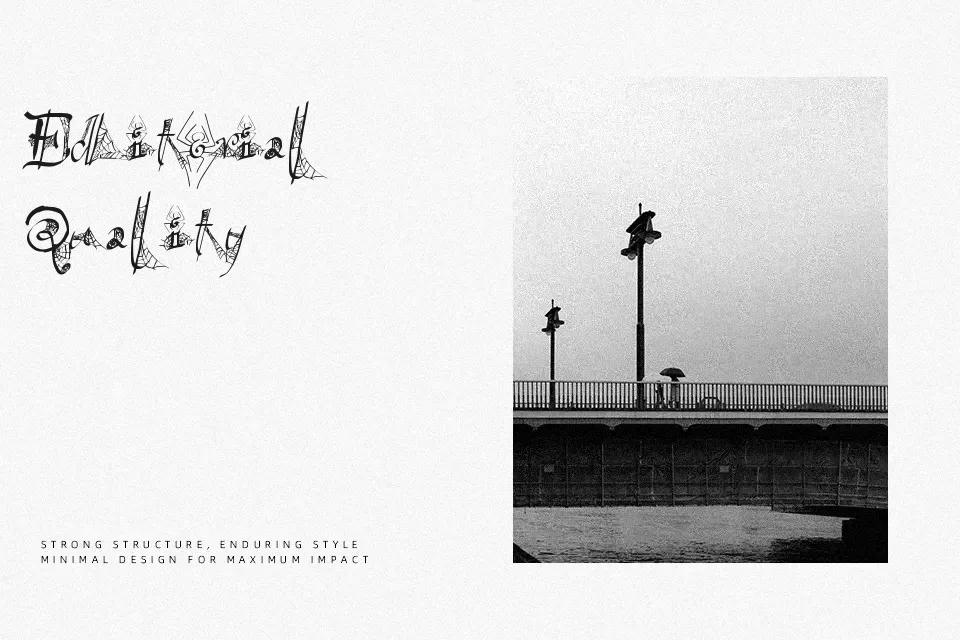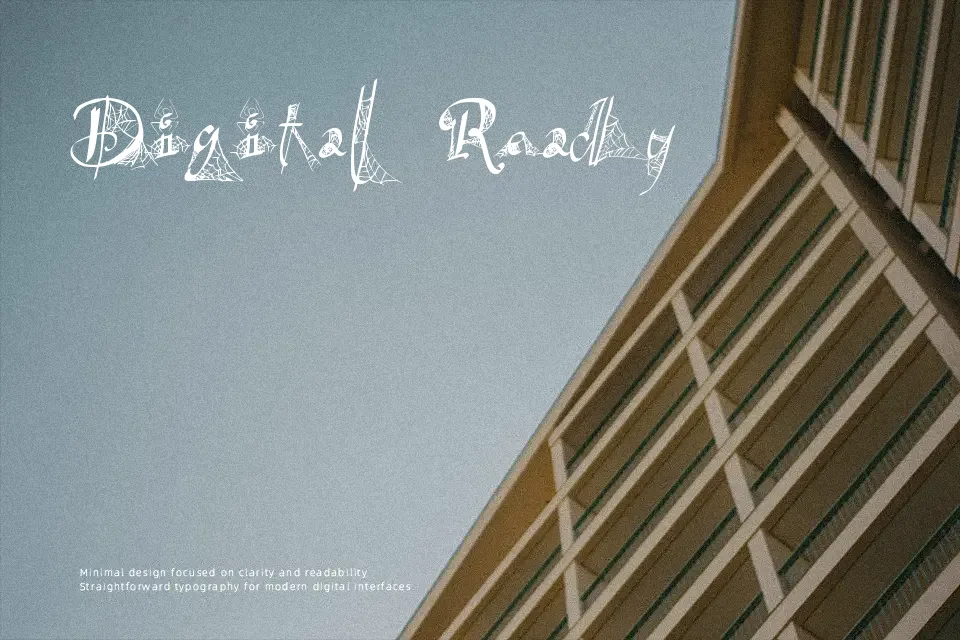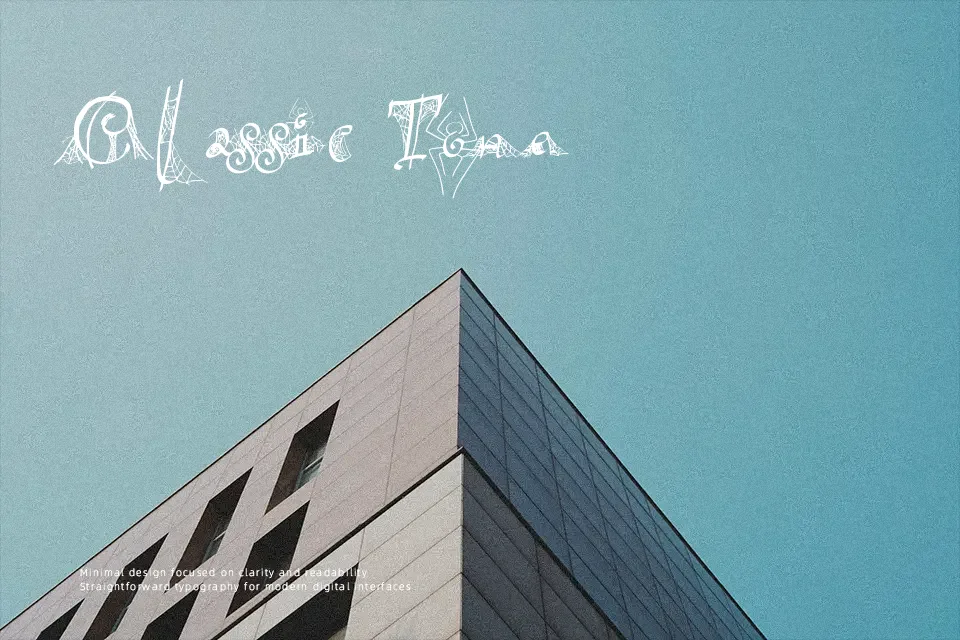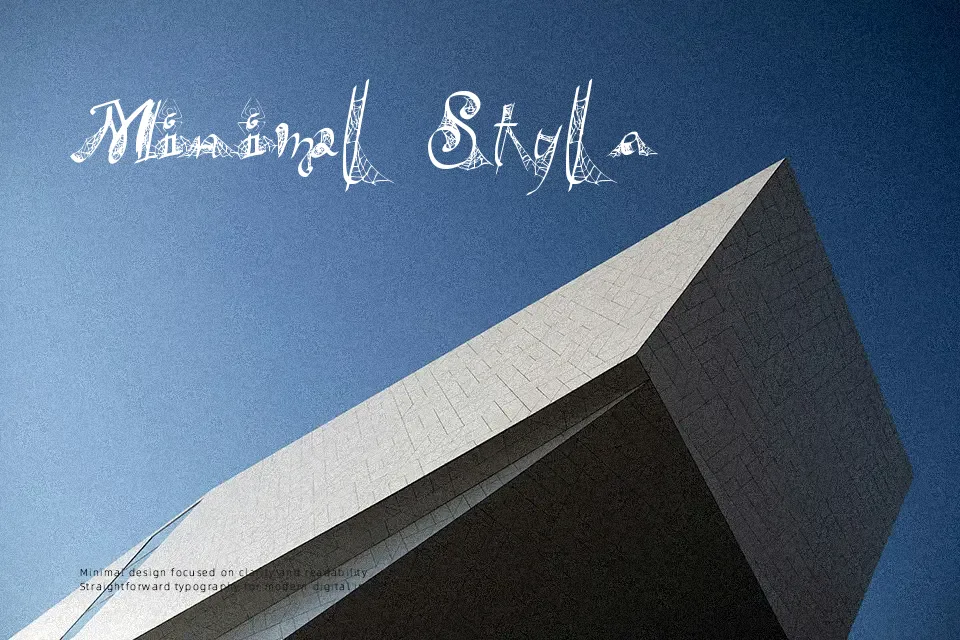
Spider Written Font
Spider Written Font showcases delicate web motifs woven directly across each character stroke, creating a distinctly eerie aesthetic. The letterforms exhibit varied stroke widths, sharp terminal accents, and moderately wide proportions that command immediate attention at generous display sizes. Because individual glyphs incorporate elaborate structural embellishments, the design works effectively for seasonal event posters, horror game logos, and gothic apparel graphics. However, the intricate details significantly reduce legibility when scaled down, making small captions or body copy difficult to decipher. Spacing remains open to accommodate decorative web strands, ensuring uppercase titles remain striking while dense lowercase clusters struggle with clarity.
Best For: Halloween event posters, horror video game titles, gothic apparel graphics, haunted attraction signage
Not Ideal For: Long paragraph text, small mobile interface labels, corporate documents, dense editorial body copy
Perfect for halloween, headline, and holiday, with a artistic and decorative style.